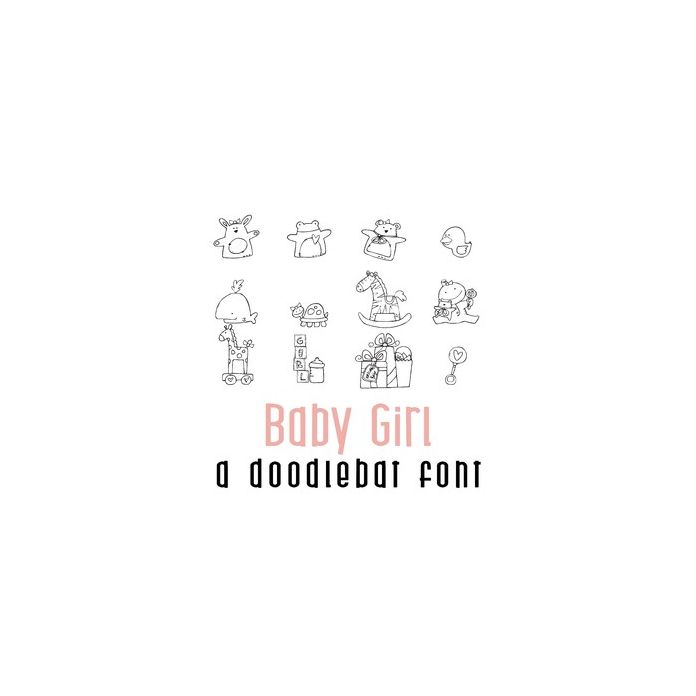
This fun doodlebat font features 36 doodle style baby girl images. Perfect for cards, crafts, gifts, decor, scrapbook pages, planner stickers, and more!